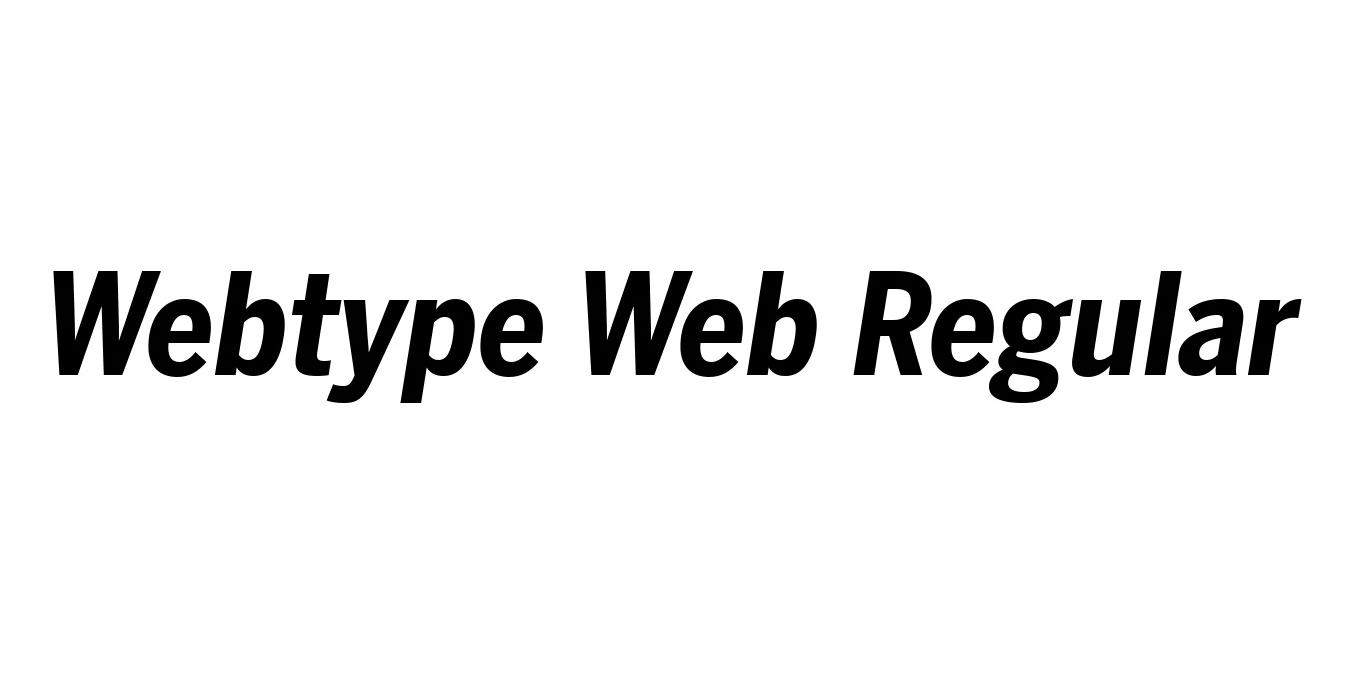
Webtype Web Regular
Designed by Font Bureau
Webtype Web Regular was born out of a strategic collaboration between the Font Bureau and other typography experts to solve the challenges of early digital rendering. Specifically engineered for the screen, this typeface focuses on high-quality TrueType hinting to ensure that every glyph remains sharp and legible across various browser engines and operating systems. Unlike many fonts adapted from print, Webtype Web was built from the ground up to excel in the low-resolution environments of the early web.
Throughout its history, the font has been a staple for developers seeking a reliable Sans-Serif that balances technical performance with aesthetic neutrality. Its robust x-height and open counters make it exceptionally readable in body text, while its clean lines allow it to blend seamlessly into modern UI designs. As web standards evolved, Webtype Web Regular remained a benchmark for high-performance digital typography, proving that functional design is timeless in the ever-changing landscape of the internet.
Webtype Web Regular Best Uses
Optimized for high-performance rendering and fast loading on professional websites.
Perfect for navigation menus, buttons, and dashboard elements requiring clarity.
Ensures excellent readability on both high-density and low-resolution mobile screens.
Maintains a clean and professional look for long-form articles and digital documentation.